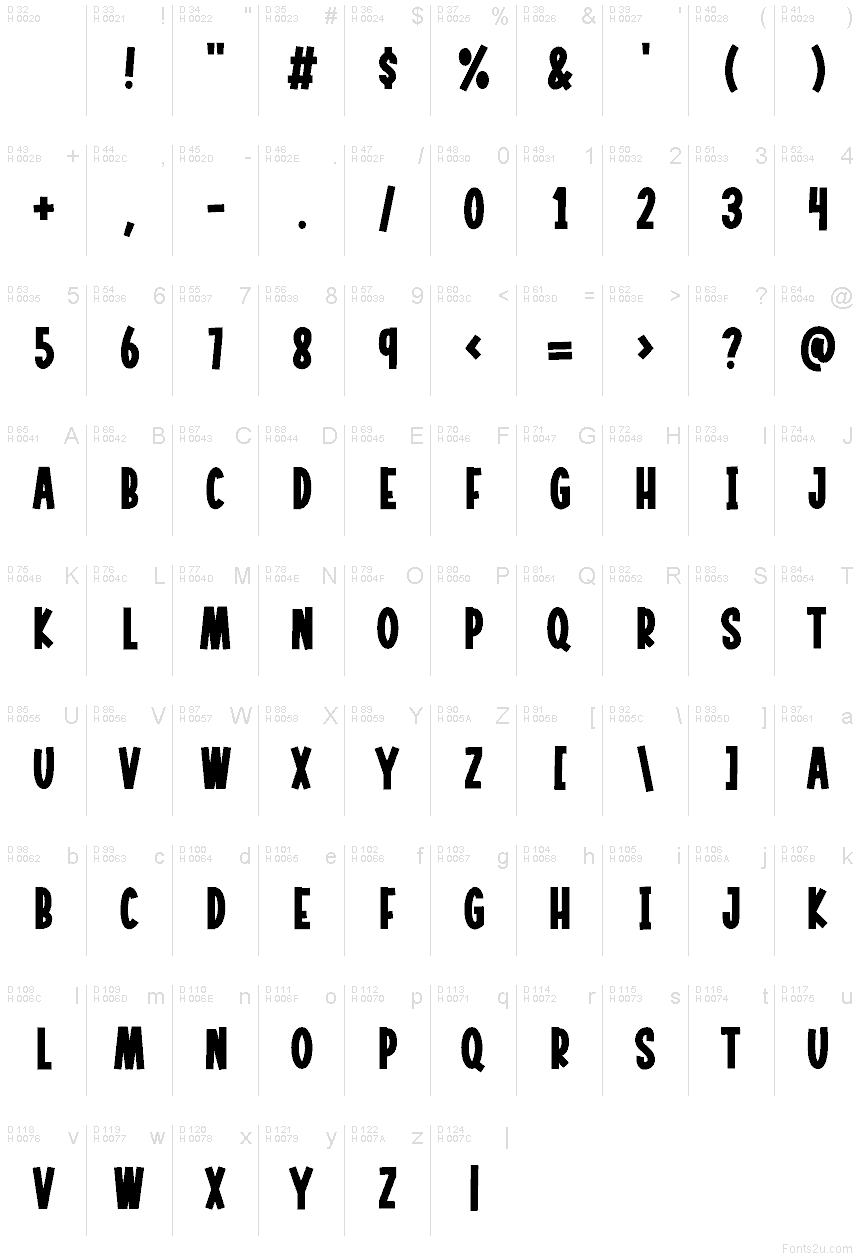
Hope City
Hope City font by RantautypeStudio is a condensed display typeface with a cartoonish edge. Its blocky characters feature uneven baselines, offering a bold presence and casual vibe. The font carries a vintage touch that makes it visually striking yet nostalgic in appearance.